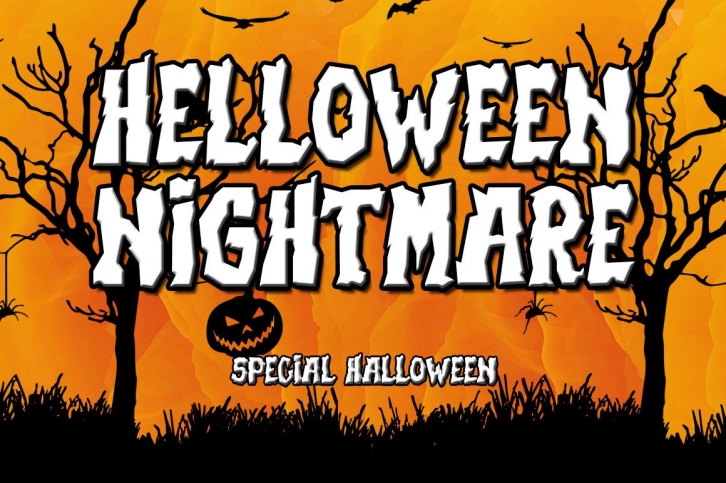
Helloween Nightmare is a bold and unique display font. Its characters give off some spooky vibes, which are perfect for your upcoming Halloween projects!